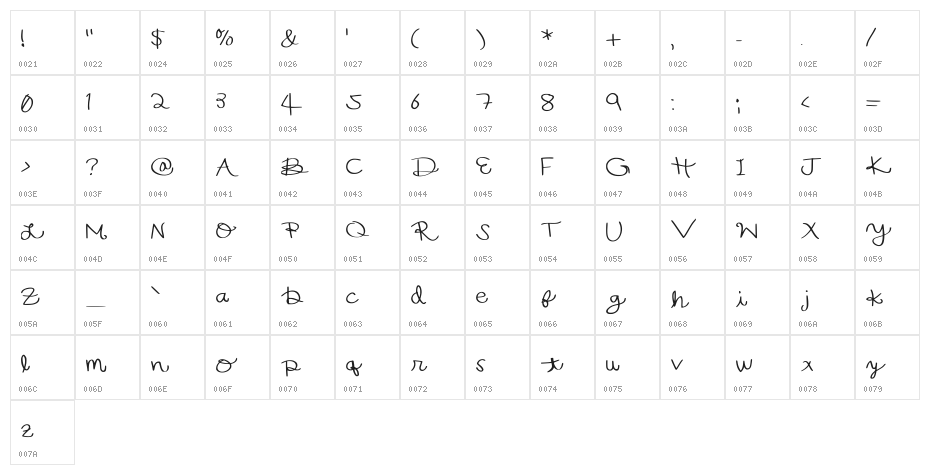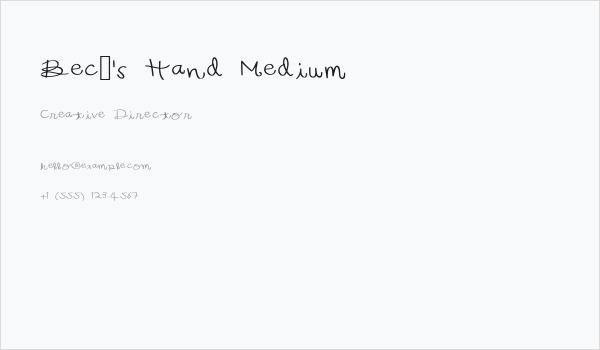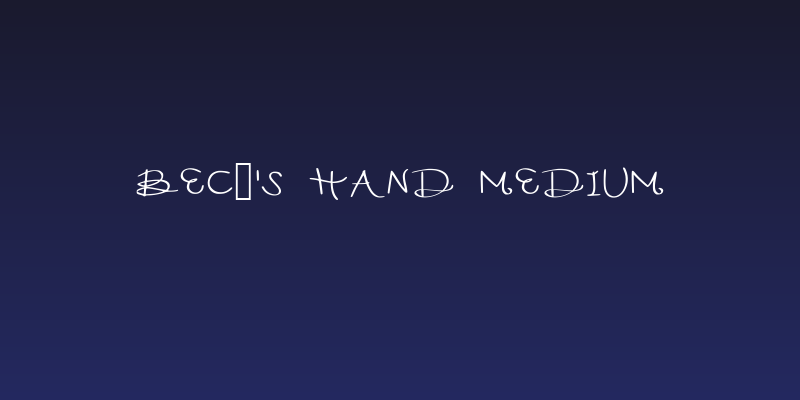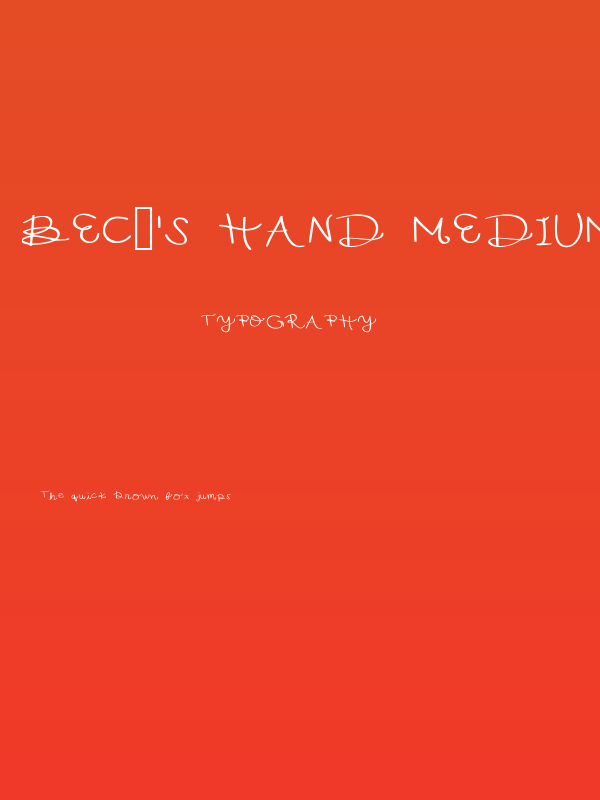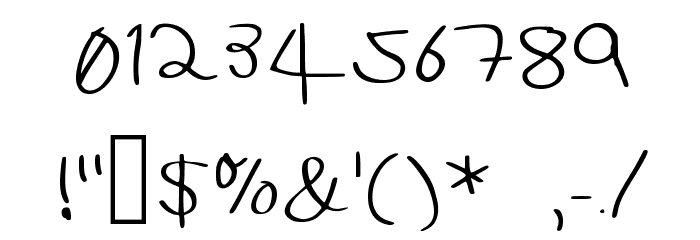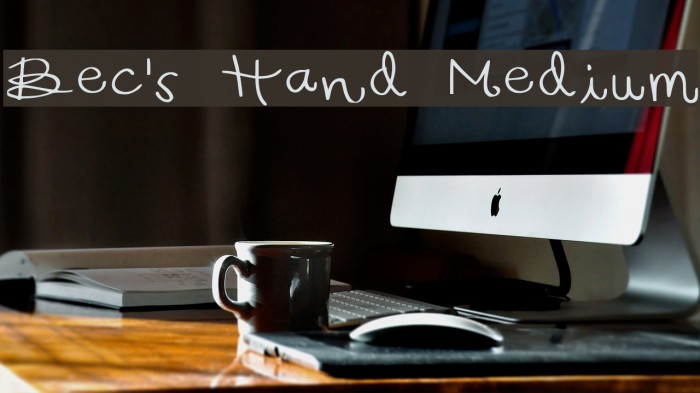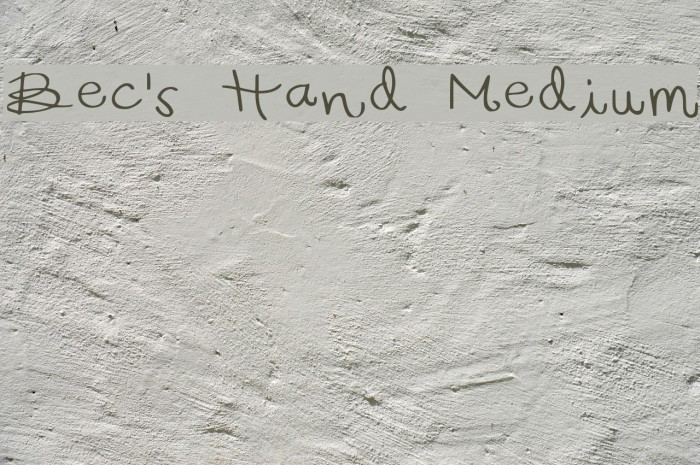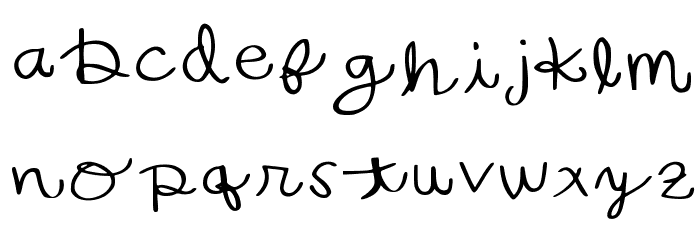
Bec's Hand Medium Font
Bec's Hand Medium Description
This font exudes a playful and casual handwritten style, characterized by its fluid and organic letterforms. Each character appears as if it was drawn with a smooth, continuous stroke, giving it a personal and informal touch. The uppercase letters maintain a consistent height, while the lowercase letters vary slightly, adding to the font's dynamic nature. The numerals are clear and legible, matching the overall aesthetic of the alphabet. Special characters are included, maintaining the same whimsical style. This font is ideal for projects that require a personal, friendly, and approachable feel.